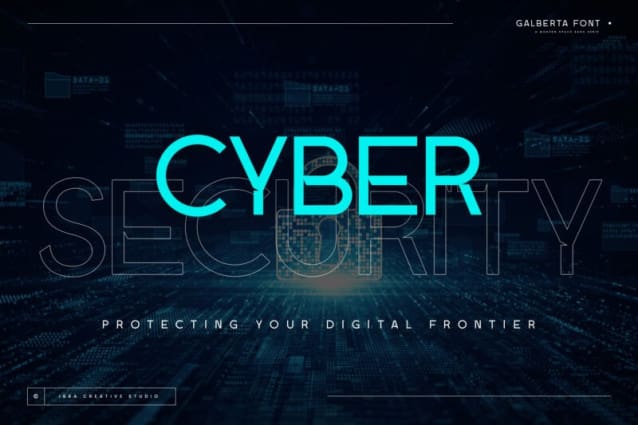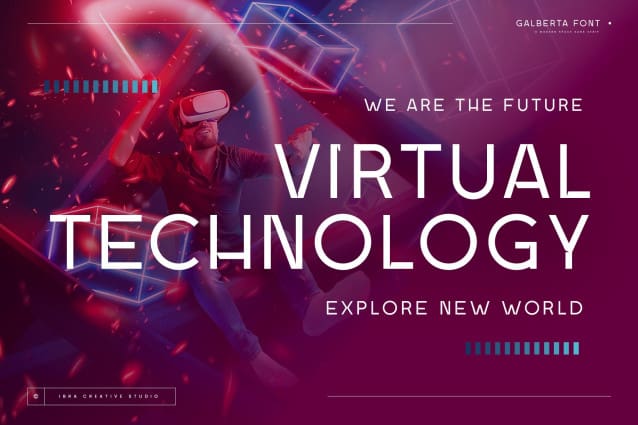
Galberta Font
Galberta Font, a cutting-edge futuristic font, embodies the essence of tomorrow’s typography with its sleek and innovative design. Its geometric, sans-serif characters seamlessly blend bold, crisp lines and subtle curves, exuding a sense of modernity and minimalism. The font’s minimalist aesthetic is complemented by its distinct fusion of sharp angles and graceful arches, creating a visually captivating harmony. Galberta Font offers a dynamic and versatile typeface that can effortlessly elevate the aesthetics of any design, from sci-fi movie posters to forward-thinking digital interfaces, making it the embodiment of typographic innovation in the digital age.